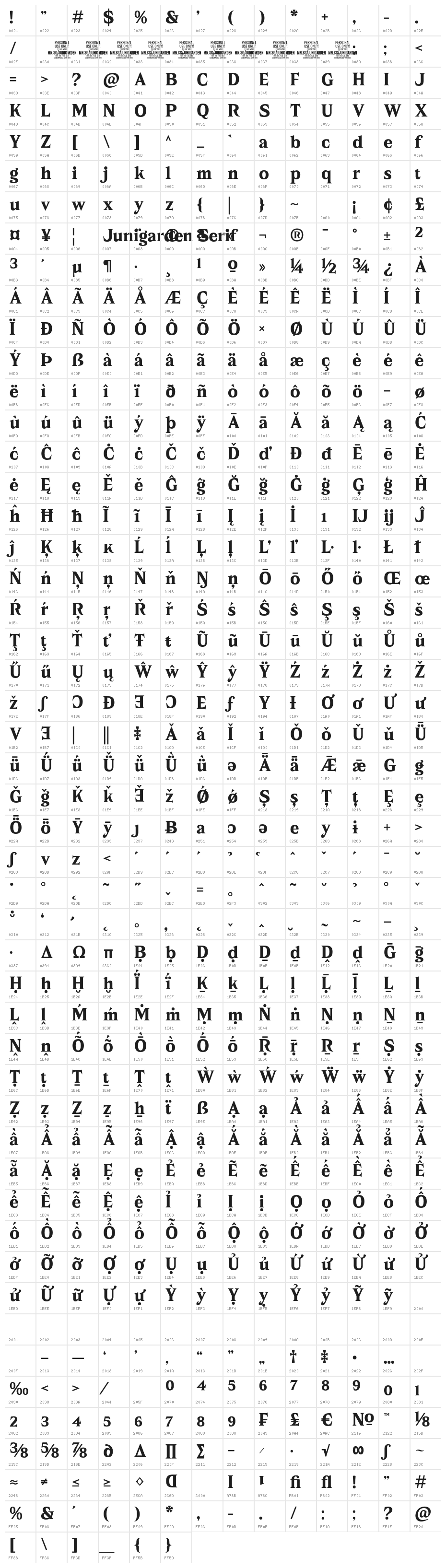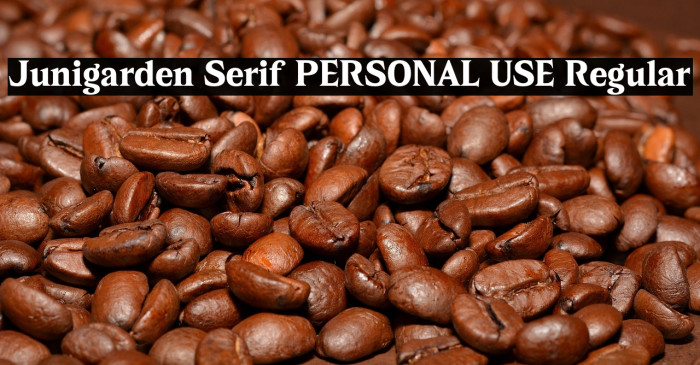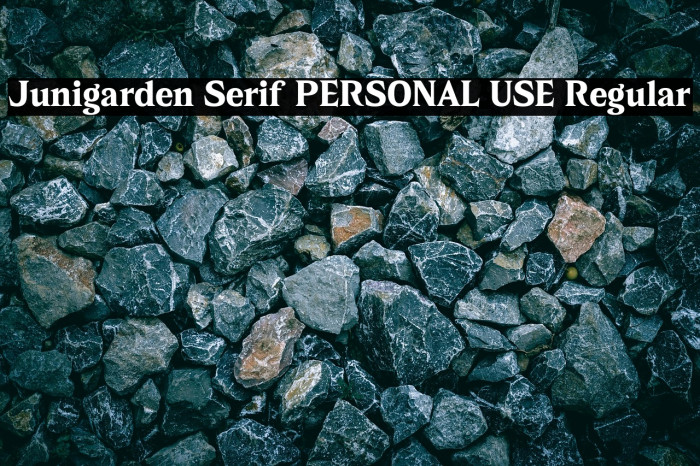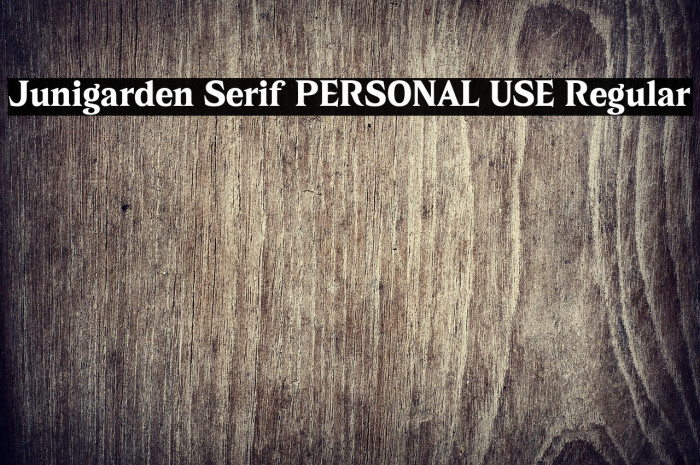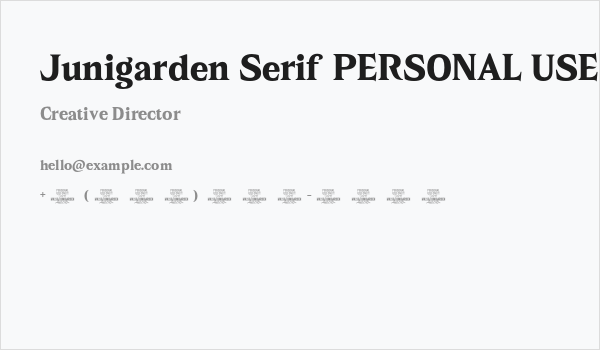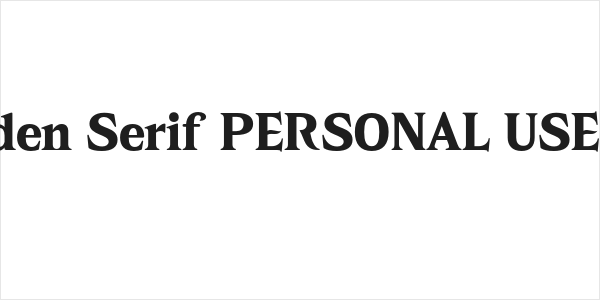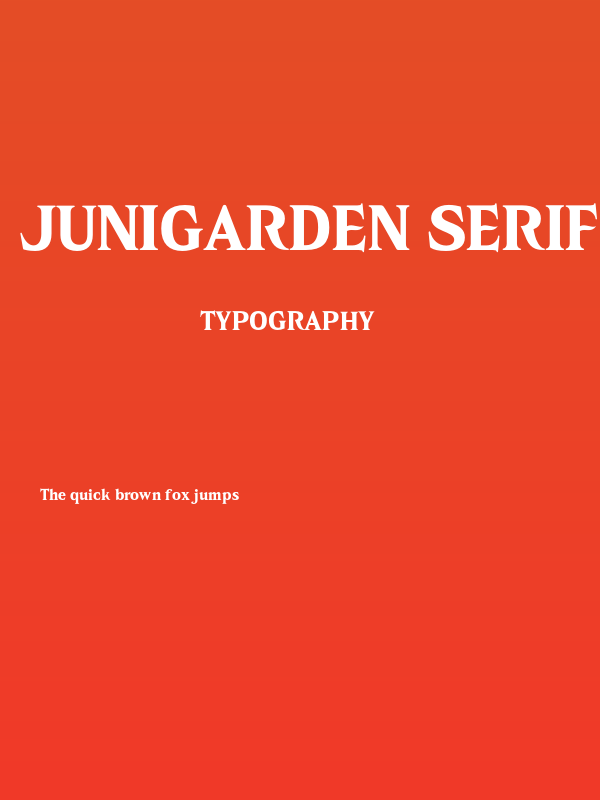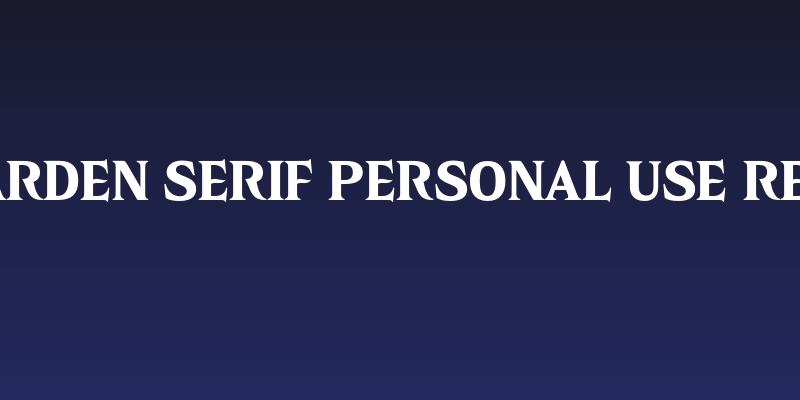
Junigarden Serif PERSONAL USE Regular Font
Junigarden Serif PERSONAL USE Regular Description
This serif font exudes a classic and authoritative presence, characterized by its bold and robust letterforms. The uppercase letters are strong and commanding, with a slight curvature that adds elegance. The lowercase letters maintain a consistent weight, offering a harmonious balance between readability and style. The numerals are clear and distinct, complementing the overall design. Special characters are well-integrated, maintaining the font's cohesive appearance. This font's traditional serif elements make it suitable for formal and professional applications.
Overall StyleClassic
Use CaseHeadlines, Logos, Editorial design
Proposed ProjectsIdeal for book covers, formal invitations, branding, and editorial design.